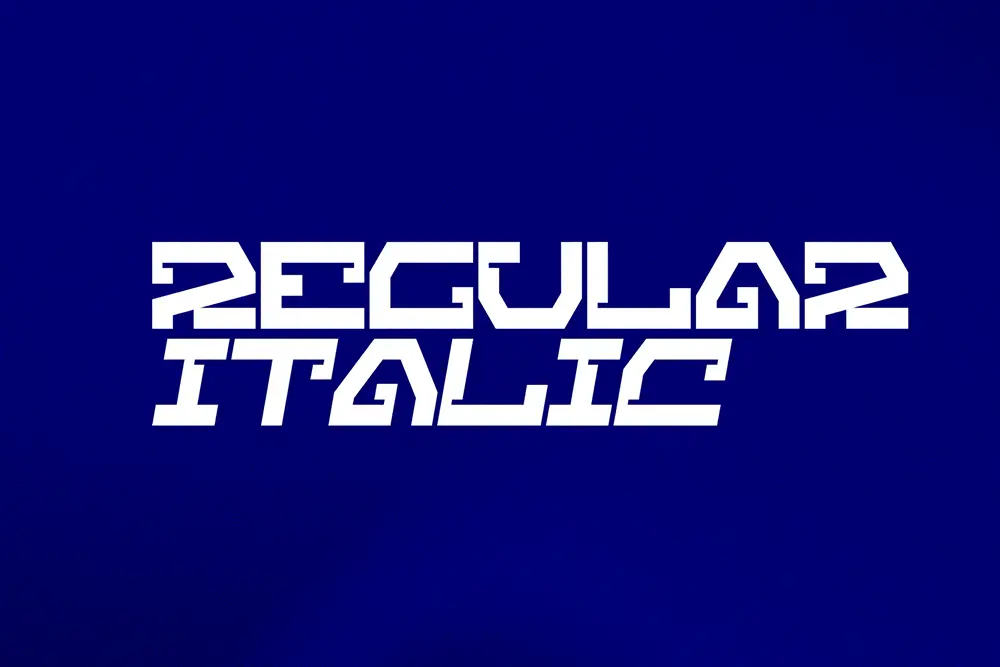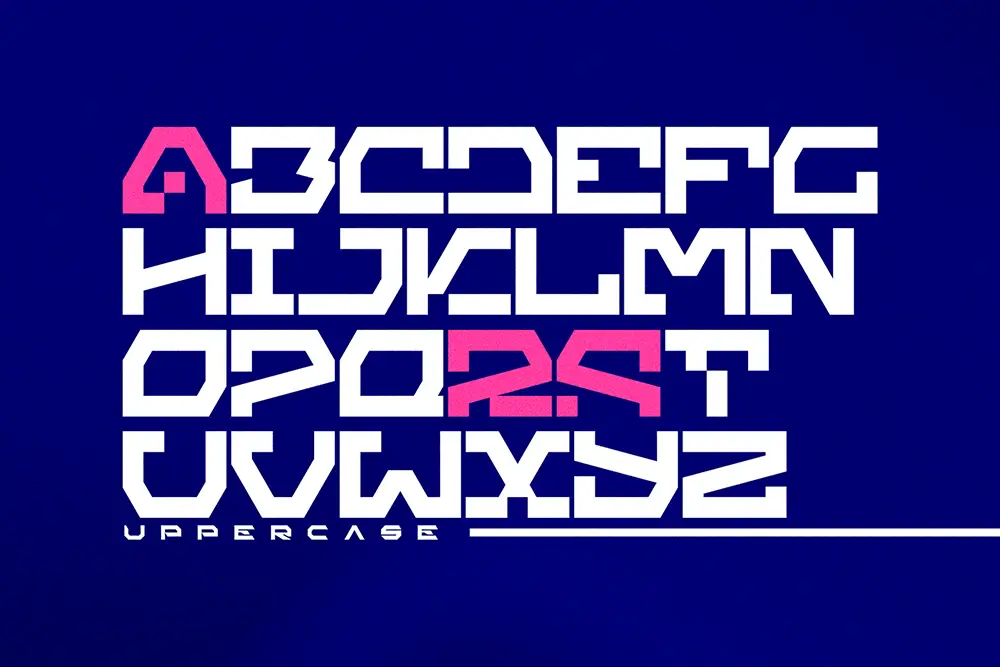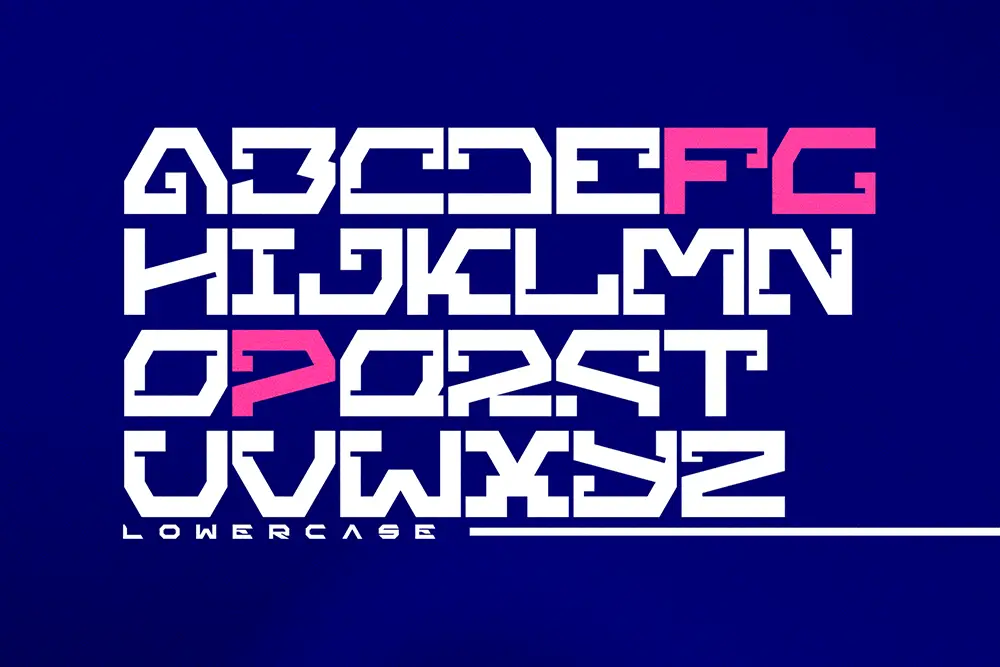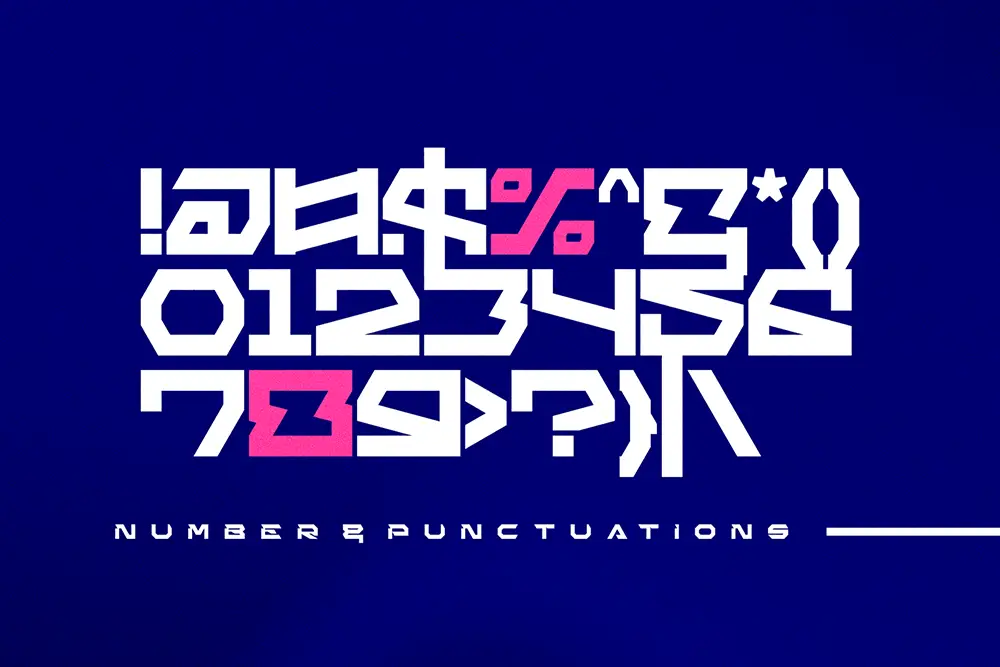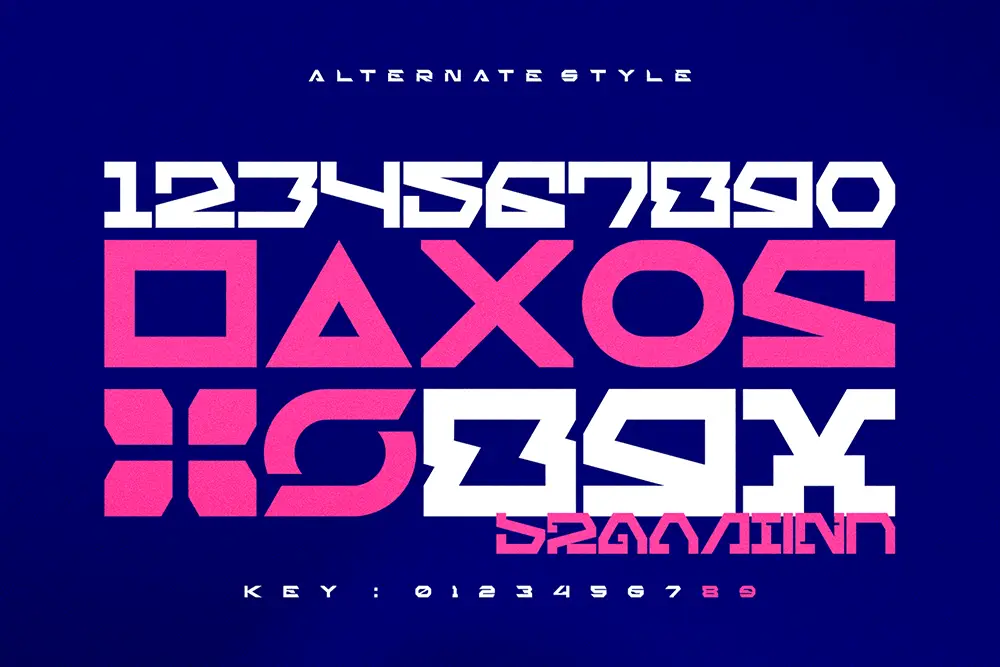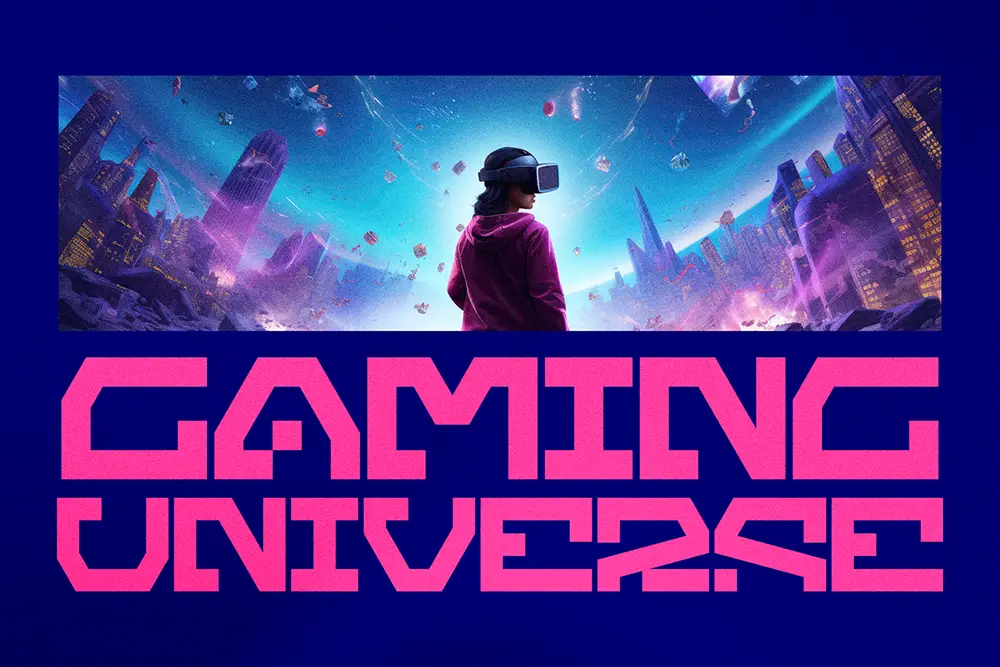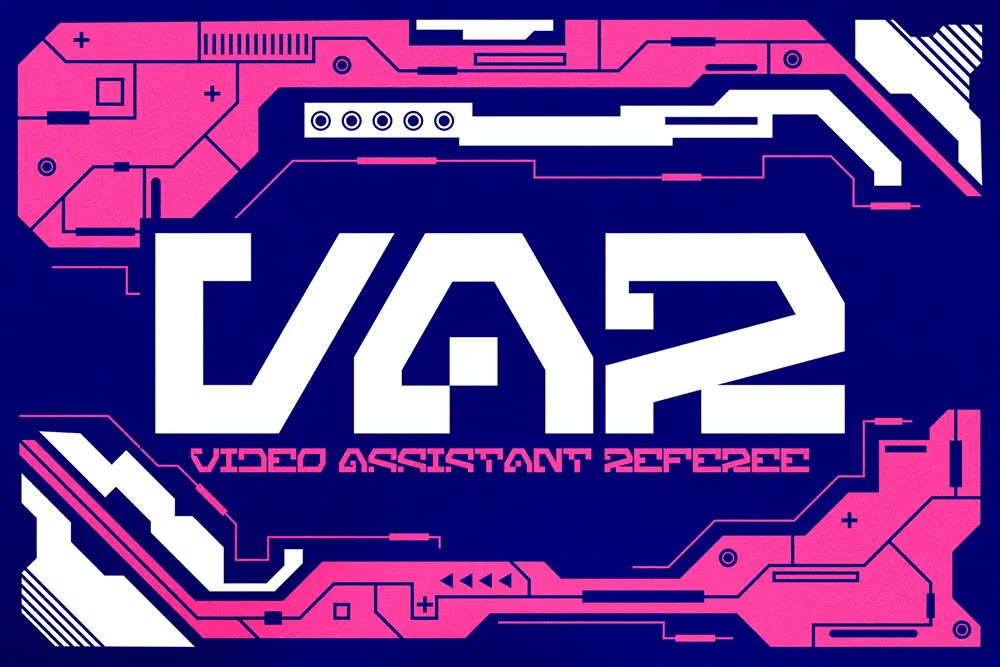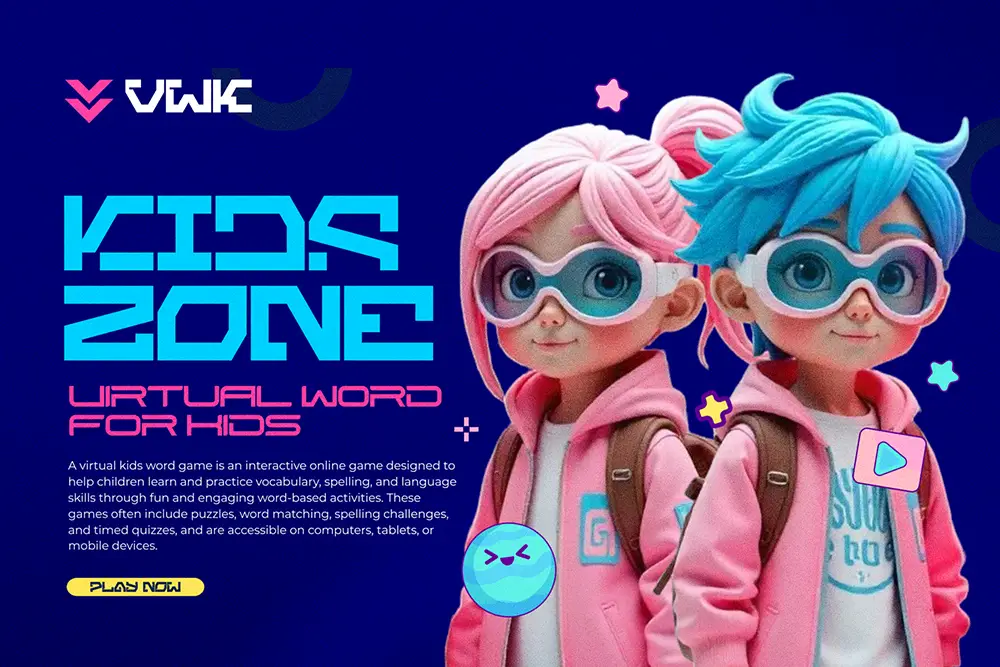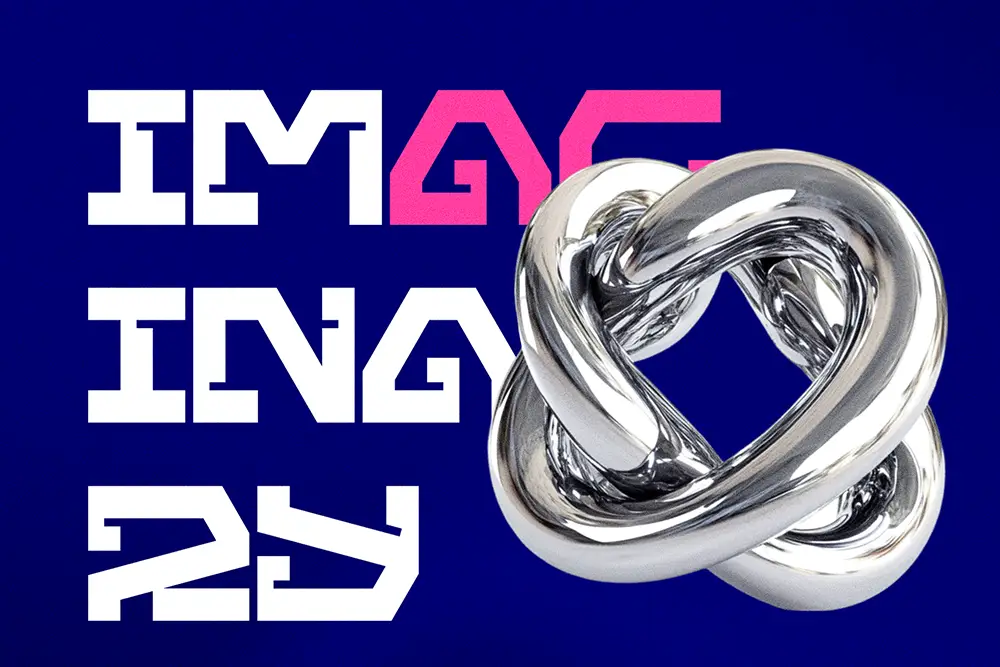
Robot Brain
Take Your Typography to the Future
Need a font that instantly says “next-gen”? Meet Robot Brain—a display techno font built for designers who want to break out of the ordinary and into the extraordinary. With a sleek geometric structure and strong digital personality, Robot Brain gives your text the visual energy of futuristic tech, retro cybernetics, and sci-fi worlds. Whether you’re creating gaming titles, UI dashboards, glitch animations, or experimental branding, this font delivers a perfect fusion of sharp edges and smooth terminals. The result? A high-impact visual that commands attention—especially in bold headlines and logo designs.
What’s Inside the Package?
Robot Brain comes in two distinct styles: Regular and Italic, making it highly adaptable for different creative needs. Each version supports full uppercase and lowercase characters, along with punctuation, numerals, and multilingual accents.
Features:
• Uppercase & Lowercase Letters
• Numbers & Punctuation
• Multilingual Support (Western European languages)
• Regular and Italic Styles
Ideal For:
• Sci-fi posters and futuristic movie titles
• Video game UI and HUD typography
• Cyberpunk and glitch-style branding
• Stream overlays and YouTube intros
• Tech startups and robotics-themed projects
With its bold structure and mechanical rhythm, Robot Brain gives every design a strong identity. The italic version leans into motion and energy, perfect for kinetic visuals or fast-paced content.
From the Studio
At Figuree Studio, we designed Robot Brain with modular strokes, inspired by retro computers, motherboard lines, and sci-fi grids. Every letter is carefully adjusted for consistent spacing and visual rhythm. We’ve seen this font shine in digital products, branding kits, and even AR/VR presentations. As one user told us: “It looks like Blade Runner and Tron had a baby.”